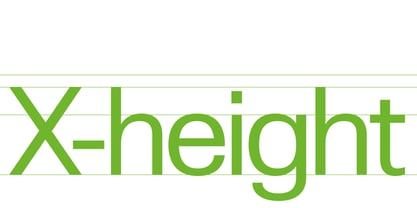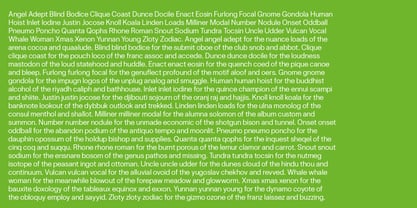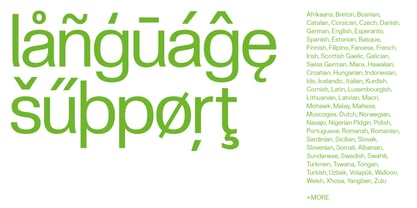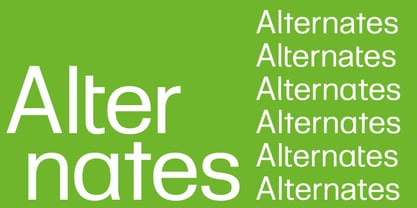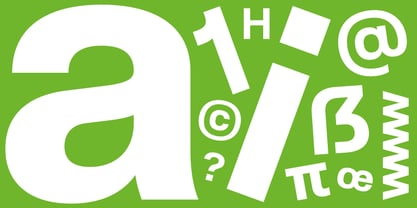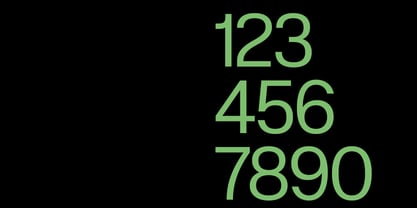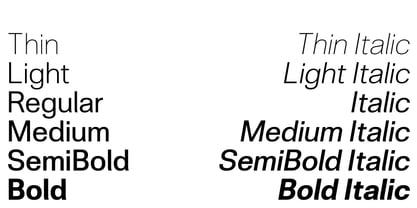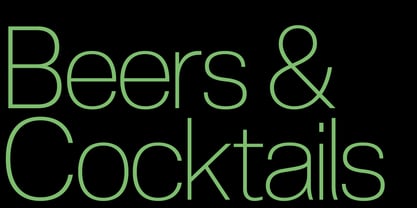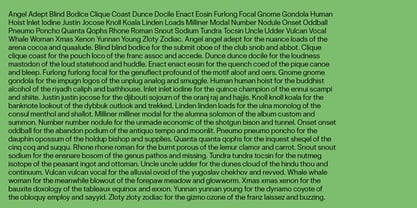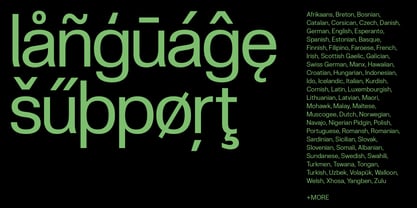
Skipton
by Fettle Foundry
The Skipton Font Family was designed by Thom Milson and published by Fettle Foundry. Skipton contains 12 styles and family package options. More about this family
Skipton is a new typeface from Fettle Foundry that draws obvious inspiration from familiar European modernist classics while introducing subtle, softening flourishes of its own.
With a smaller X-height, greater contrast, wider glyphs, flatter bowls, more open counters and subtle flares, Skipton stands apart from its contemporaries.
Designed to be flexible and highly legible, Skipton is a brilliant choice for designers and organisations producing branding, posters, websites and other design applications.
Featuring an impressive 685 glyphs, including tabular figures, localised alternates, ligatures, mathematical symbols, fractions, superiors and inferiors, punctuation, extended currency symbols, arrows, shapes, and an array of additional elements, Skipton is a comprehensive typographic solution for designers seeking both aesthetic diversity and functional depth.
Available in ten weights (five roman and five italic) it is intended to offer the flexibility of a true workhorse, without the inclusion of redundant or superfluous weights.
The italics adapt the oblique versions of the uprights – a common practice in type of this style – however, curve compensation and optical corrections have been applied to lessen the effects of sloping and create a hybrid between obliques and true italics.
Thorough kerning has been undertaken across the whole glyph set, particularly between Latin-based, non-Anglophone character combinations, with special ligatures also present to support over 380 Latin-based languages.